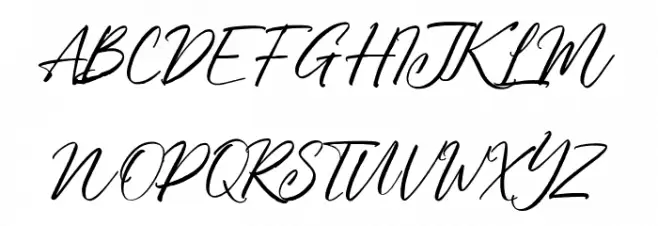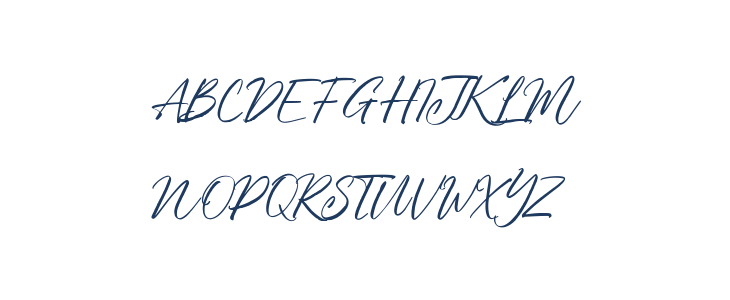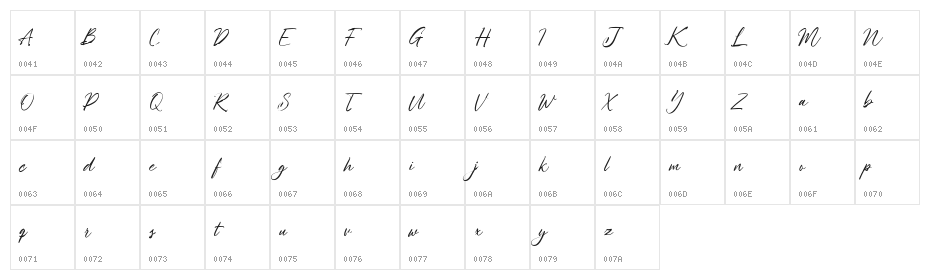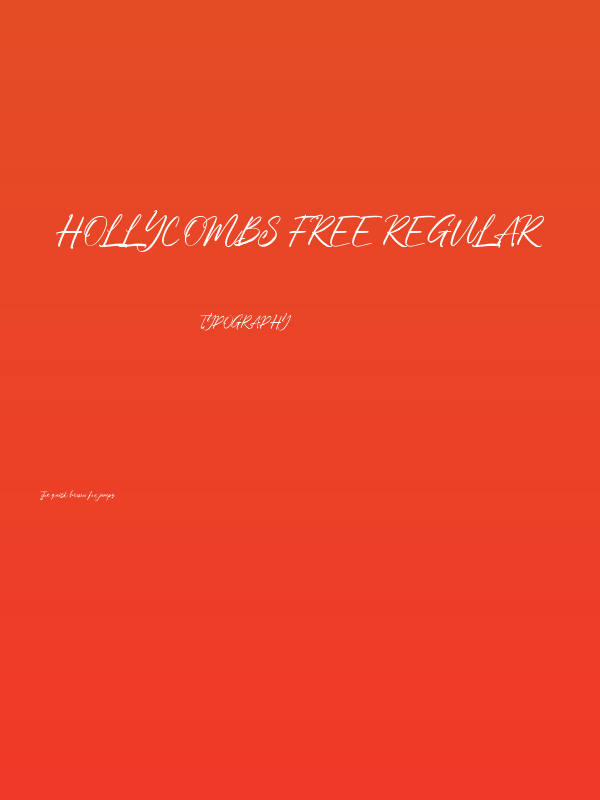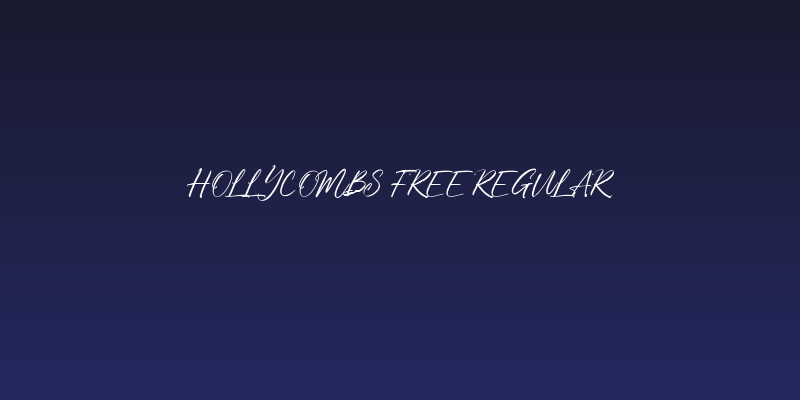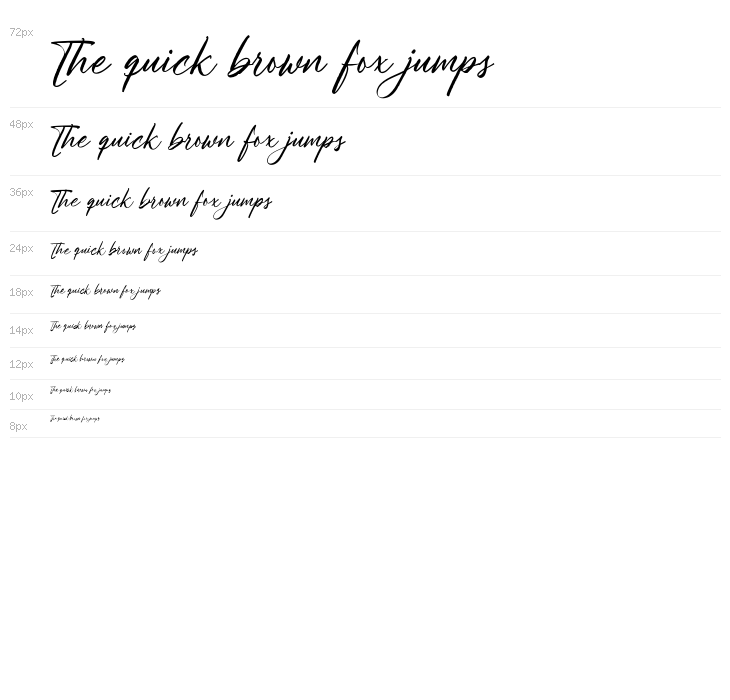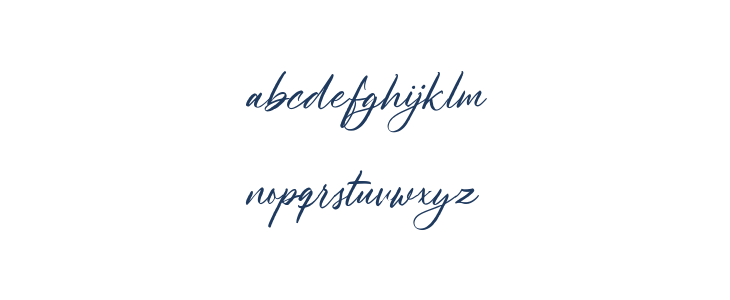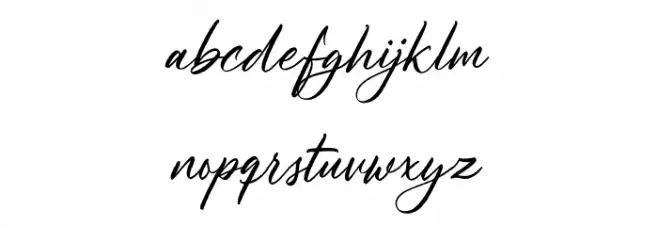
Hollycombs Free Regular Font
Hollycombs Free Regular Description
A flowing, cursive script font with a handwritten appearance, featuring elegant, connected letterforms and variable stroke thickness that mimics natural penmanship.
| Overall Style | Decorative, Handwritten, Elegant |
| Use Case | Logos, Invitations, Headlines, Decorative text |
| Proposed Projects | Wedding invitations, greeting cards, personal branding, social media graphics, event posters. |